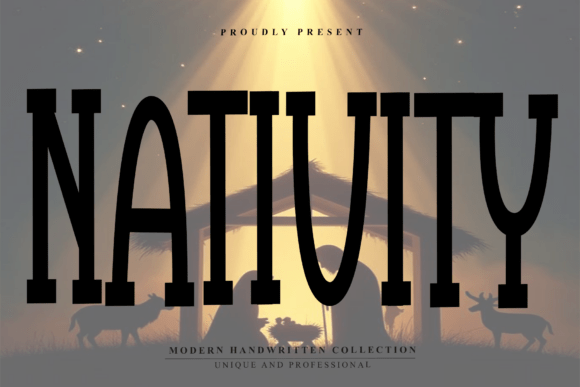
Nativity: A Modern Minimalist Font
Nativity is a unique typeface that blends simplicity with elegance. Its clean, monolinear design gives it a modern feel while maintaining a personal touch. This font is ideal for those who want to convey professionalism without sacrificing warmth.
Designed with tall and slender characters, Nativity has a soft, flowing appearance. The gentle curves make it easy on the eyes, which is why it's often used in branding and design projects that aim to feel approachable. Whether you're creating a logo or designing a website, Nativity can help you achieve a balanced look.
What Makes Nativity Unique?
Nativity stands out due to its minimalistic style. Unlike more ornate fonts, it doesn't have extra embellishments or thick strokes. Instead, it focuses on simplicity and clarity. This makes it versatile for various applications, from digital to print media.
The font's monolinear structure means all strokes are the same width. This consistency contributes to its sleek appearance. It's perfect for designs that require a modern aesthetic but still need to feel human and relatable.
Why Choose Nativity?
If you're looking for a font that feels both professional and friendly, Nativity could be the right choice. It's especially popular among designers, marketers, and business owners who want to create a strong visual identity without overwhelming their audience.
For example, interior designers might use Nativity in their branding to reflect a contemporary and refined style. Real estate professionals could use it in logos to give their brand a clean and trustworthy image. Lifestyle magazines often use it to maintain a modern yet inviting tone.
Where Can You Use Nativity?
Nativity is suitable for a wide range of contexts. In personal projects, it can add a stylish touch to resumes, social media profiles, or handmade cards. For creative work, it's great for illustrations, posters, and packaging designs.
In professional settings, Nativity can enhance presentations, reports, and marketing materials. It works well in both digital and print formats, making it a flexible choice for any project. Educators might use it in lesson plans or classroom materials to keep things visually appealing and easy to read.
Entrepreneurs and small business owners can benefit from using Nativity in their branding. It helps create a cohesive look across all communication channels, from websites to business cards. This consistency can build trust and recognition among customers.
Practical Tips for Using Nativity
When working with Nativity, consider the context in which it will be used. While it's highly readable, it may not be the best choice for long blocks of text. Instead, use it for headings, titles, and short phrases where its visual appeal can shine.
Pairing Nativity with other fonts can also enhance your design. For instance, combining it with a more traditional serif font can create contrast and balance. Experiment with different layouts to find what works best for your project.
Before finalizing your design, test Nativity in different sizes and backgrounds. This ensures it remains legible and maintains its intended style. Also, check how it looks on various devices, as screen resolution can affect the appearance of fonts.
Understanding the Appeal of Nativity
The appeal of Nativity lies in its ability to bridge the gap between formal and casual design. It offers the sophistication of a traditional font while retaining the warmth of a handwritten style. This duality makes it a popular choice for brands that want to appear both reliable and relatable.
For beginners, Nativity provides an accessible way to experiment with typography. It’s easy to use and doesn’t require advanced design skills. As you become more familiar with it, you can explore more complex applications and refine your design choices.
Ultimately, Nativity is more than just a font—it's a tool that can elevate your visual communication. Whether you're working on a personal project or a professional campaign, it offers a fresh and modern alternative to more conventional typefaces.